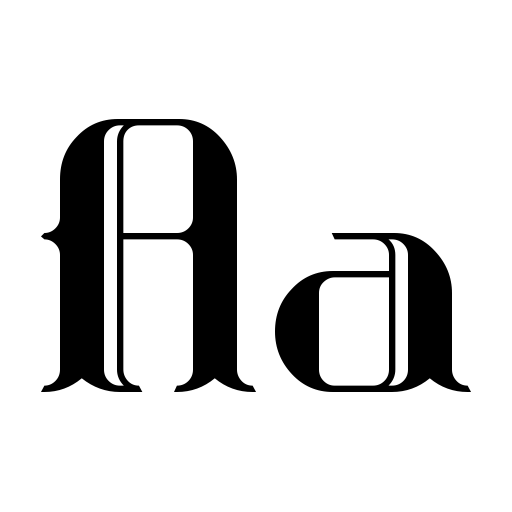
Blackoninaut BRK is a bold, condensed serif font featuring a high contrast between thick and thin strokes with sharp, bracketed serifs that give it a dramatic and ornamental look. Its tall, narrow letterforms and unique details like the straight-edged terminals and stylized curves lend it a vintage yet modern Gothic feel, perfect for striking headlines, logos, and branding that demand attention and a distinctive, sophisticated personality. This font works best where bold expression and artistic flair are needed, such as posters, fashion branding, and editorial display text.
Blackoninaut BRK Font
About Blackoninaut BRK Font